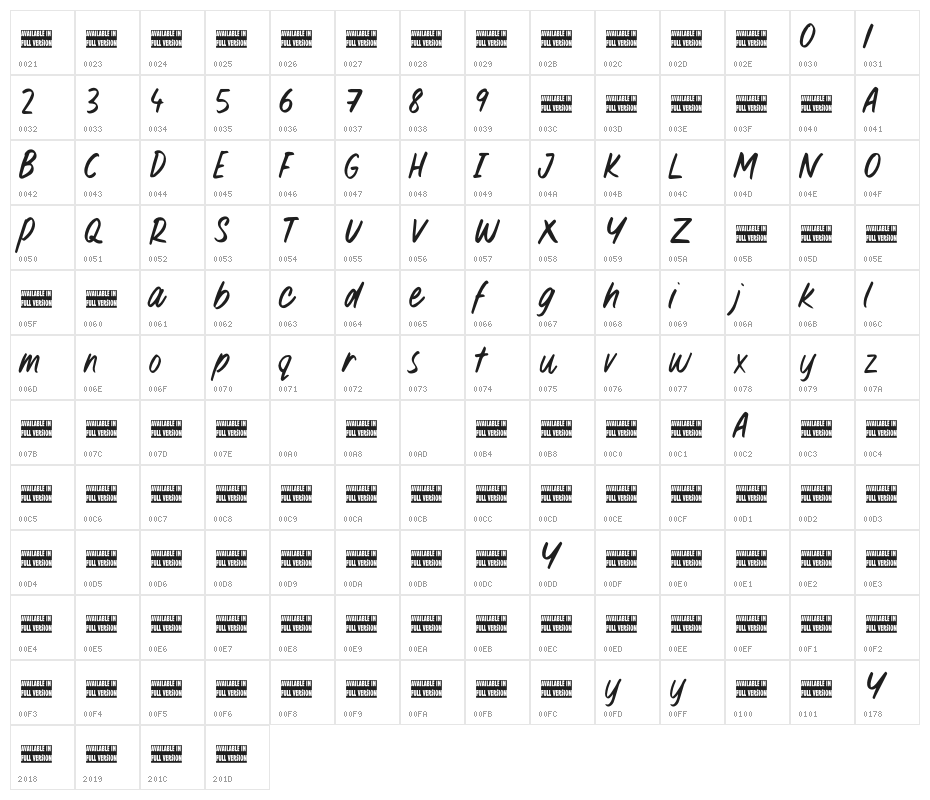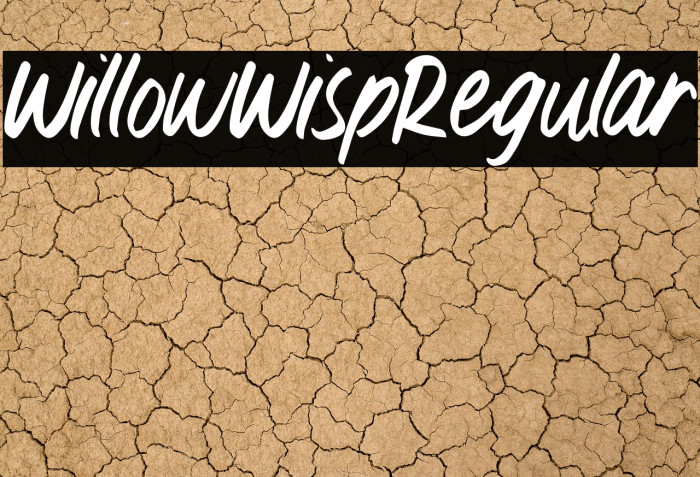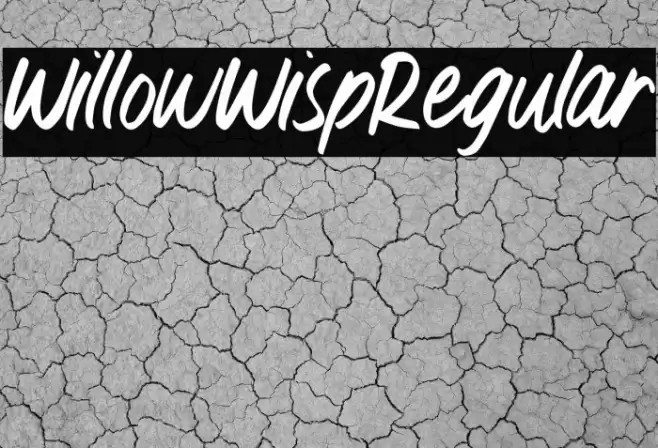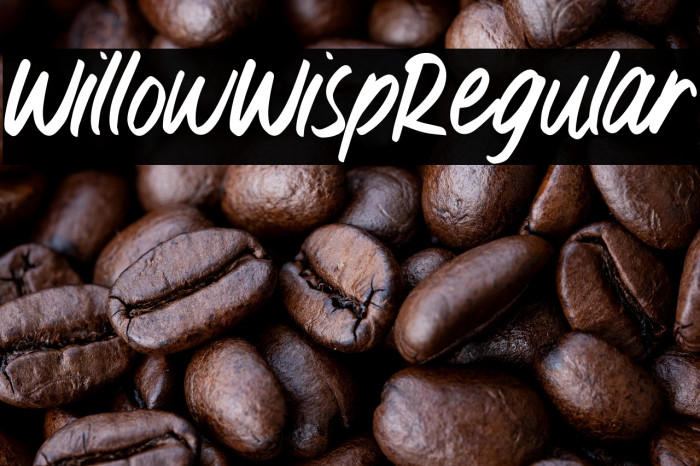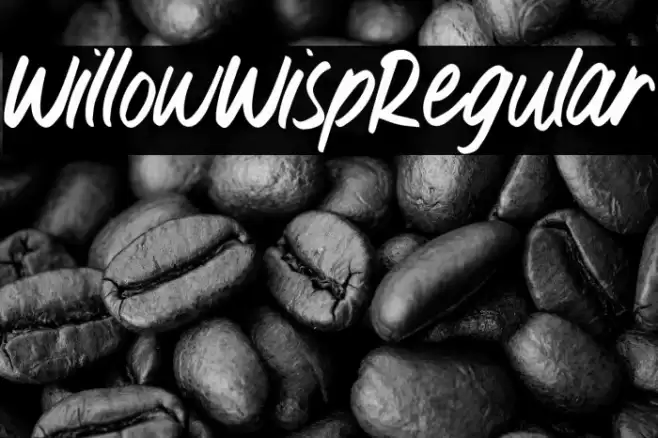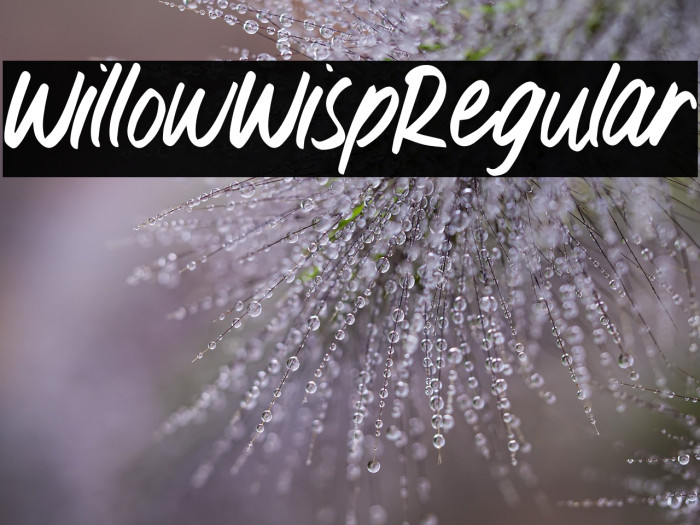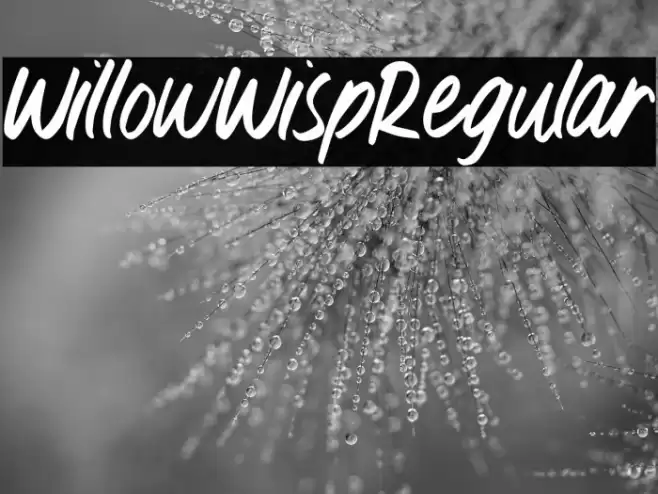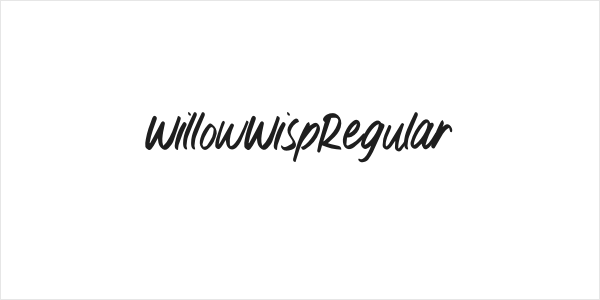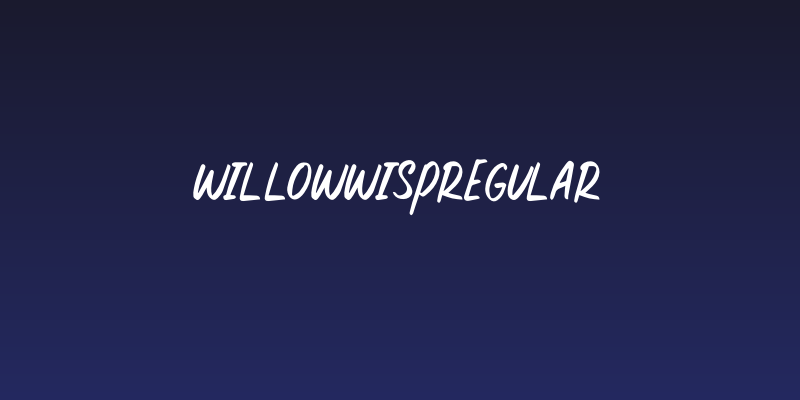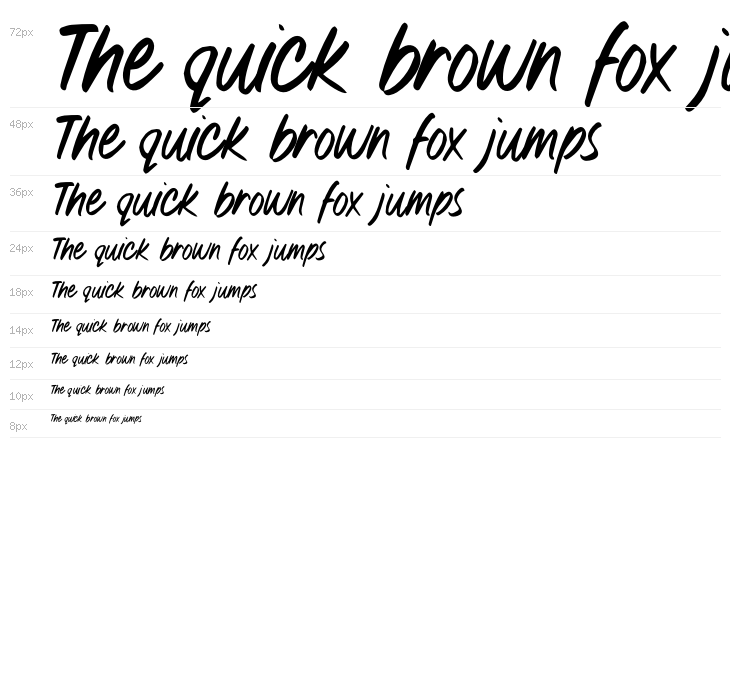
WillowWispRegular Font
WillowWispRegular Description
This font exudes a lively and energetic feel with its bold, handwritten style. The letters are slightly slanted, giving it a dynamic and informal appearance. Each character is crafted with smooth, flowing strokes that vary in thickness, adding a touch of elegance and spontaneity. The uppercase letters are bold and prominent, while the lowercase letters maintain a consistent flow, enhancing readability. The numbers are equally expressive, matching the overall playful yet sophisticated vibe. This font is perfect for projects that require a personal touch, such as invitations, greeting cards, or creative branding.
| Proposed Projects | Ideal for invitations, greeting cards, creative branding, and personal projects. |